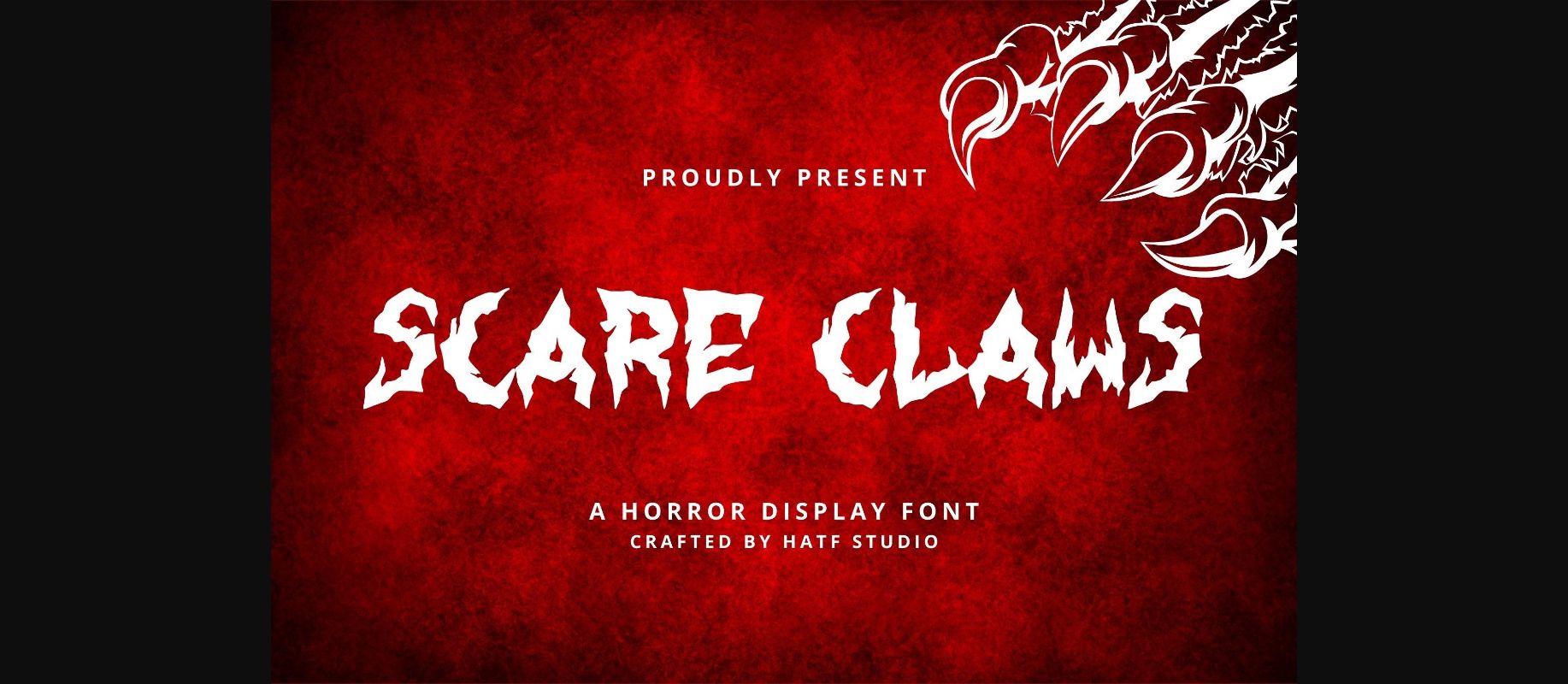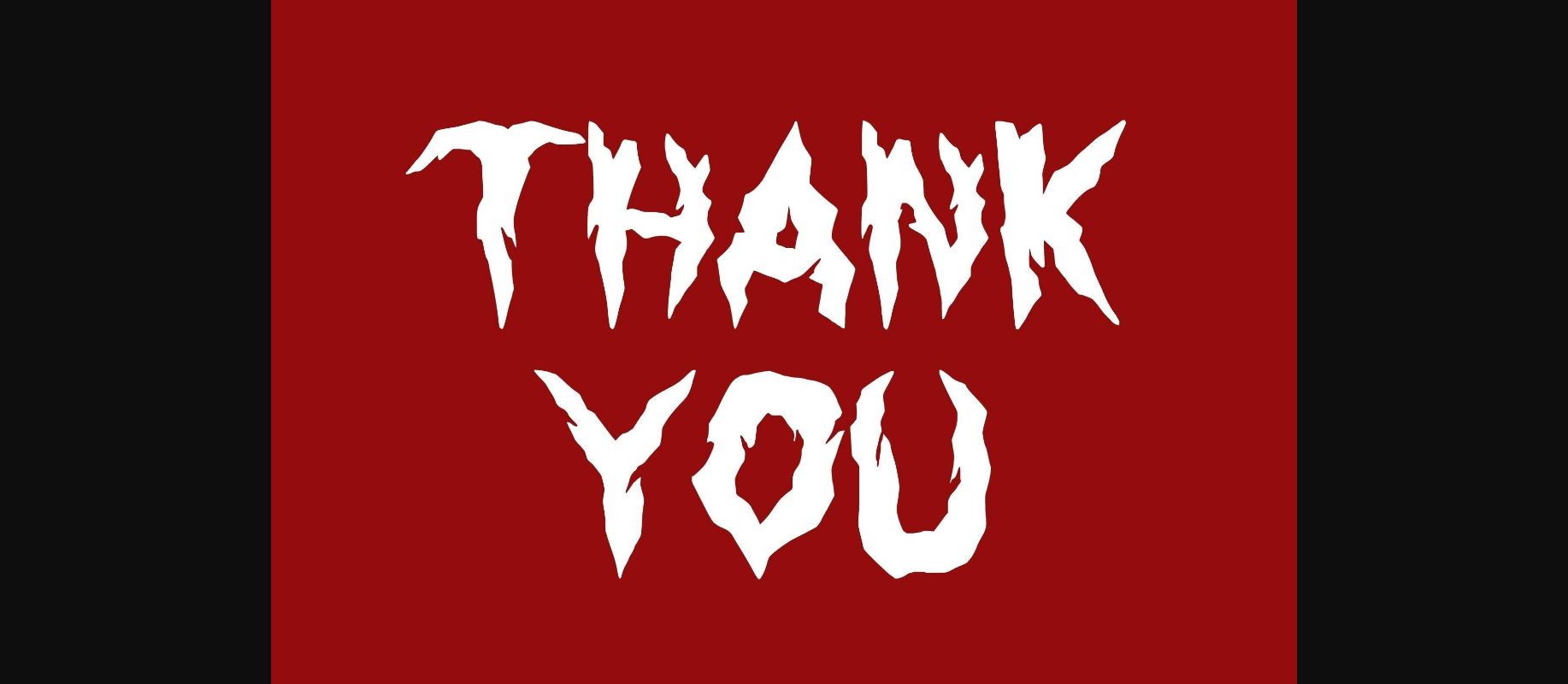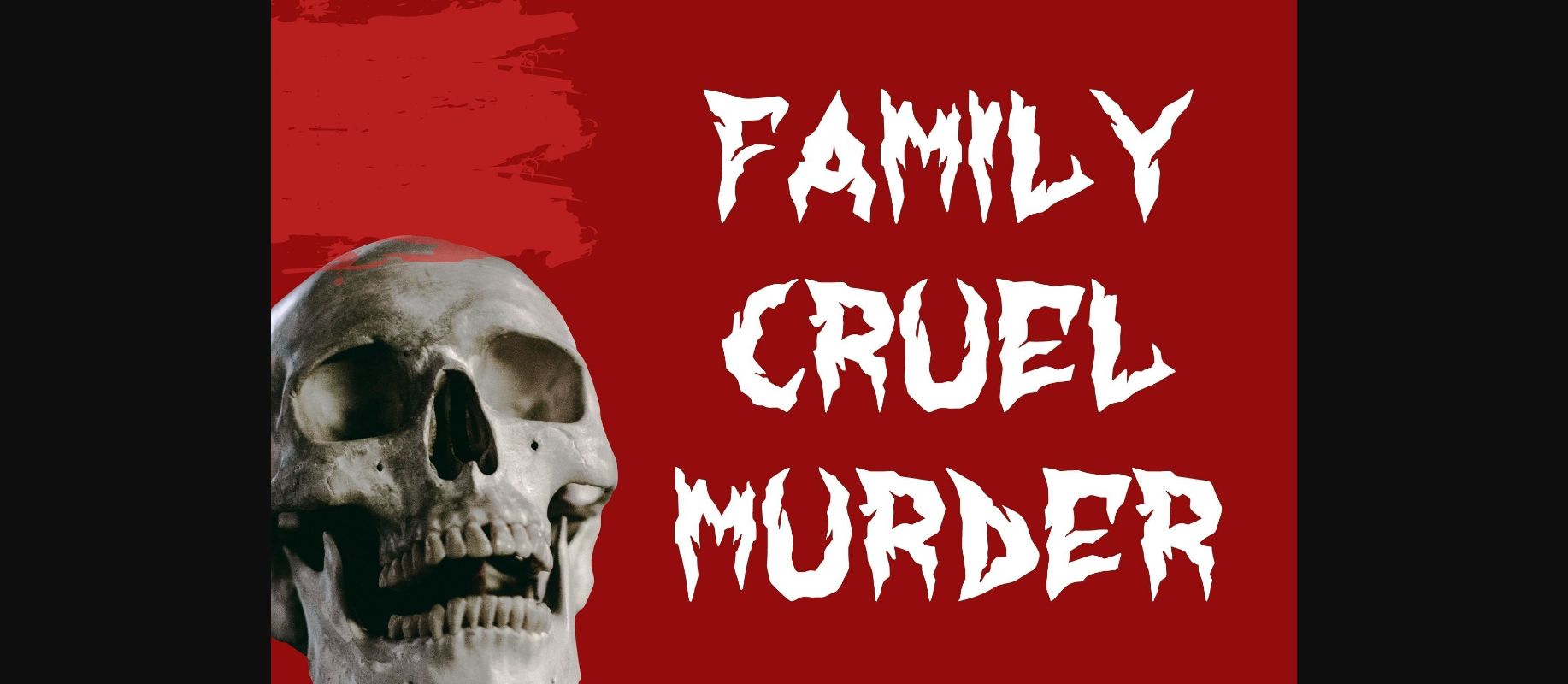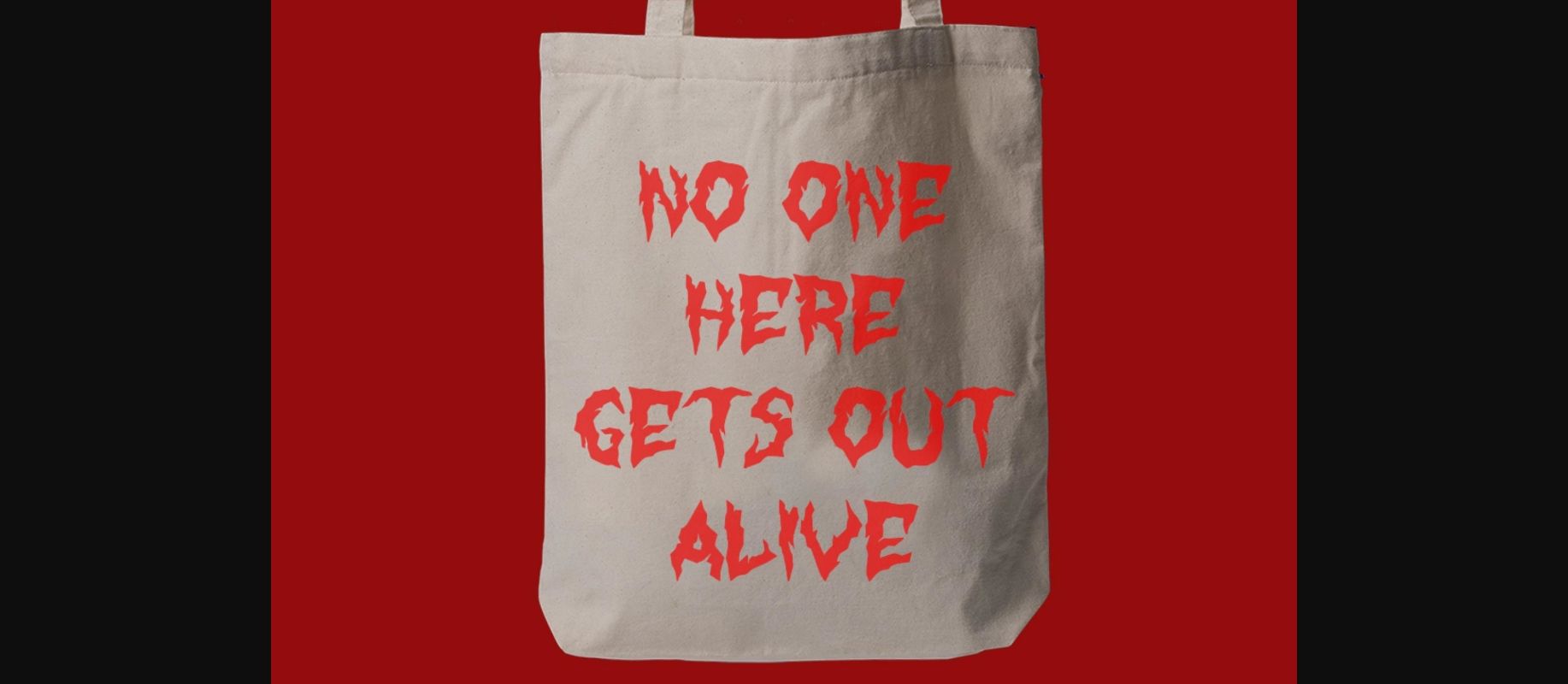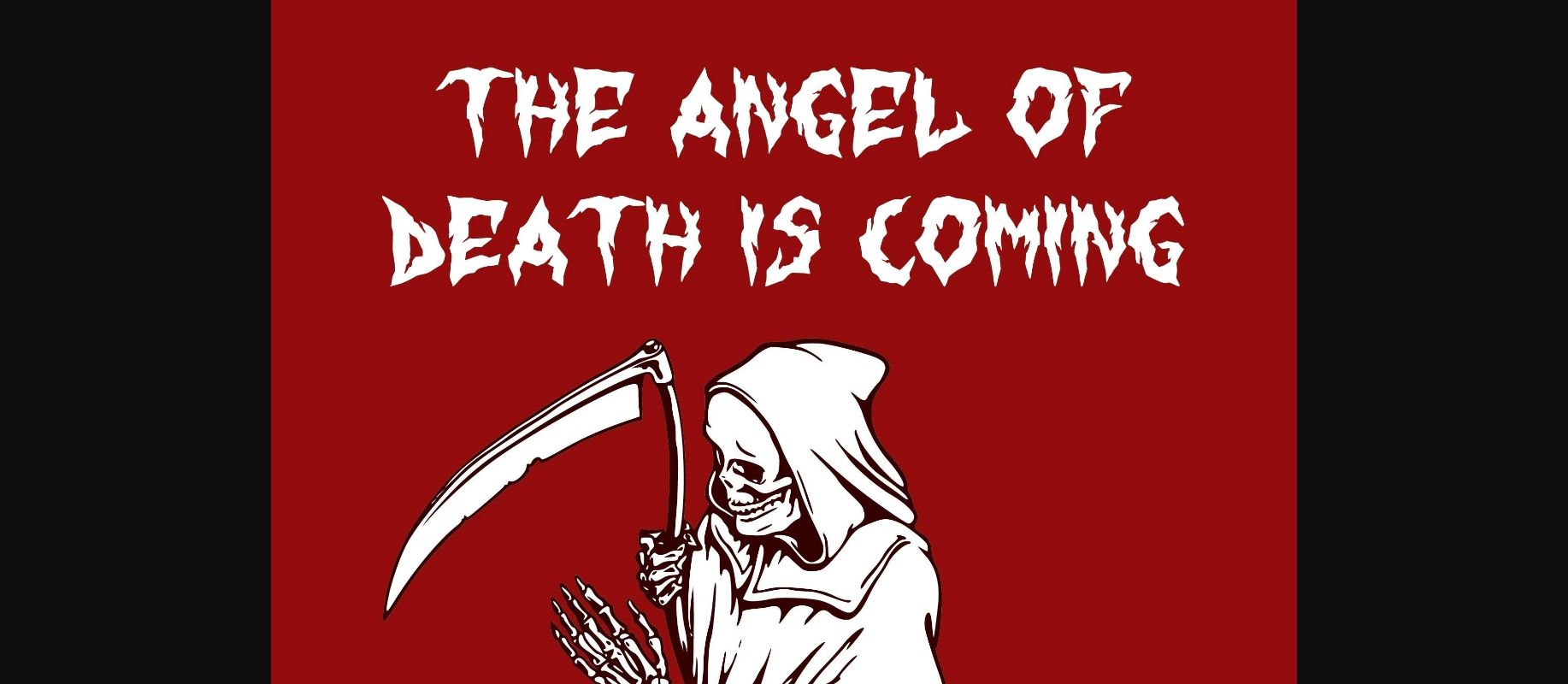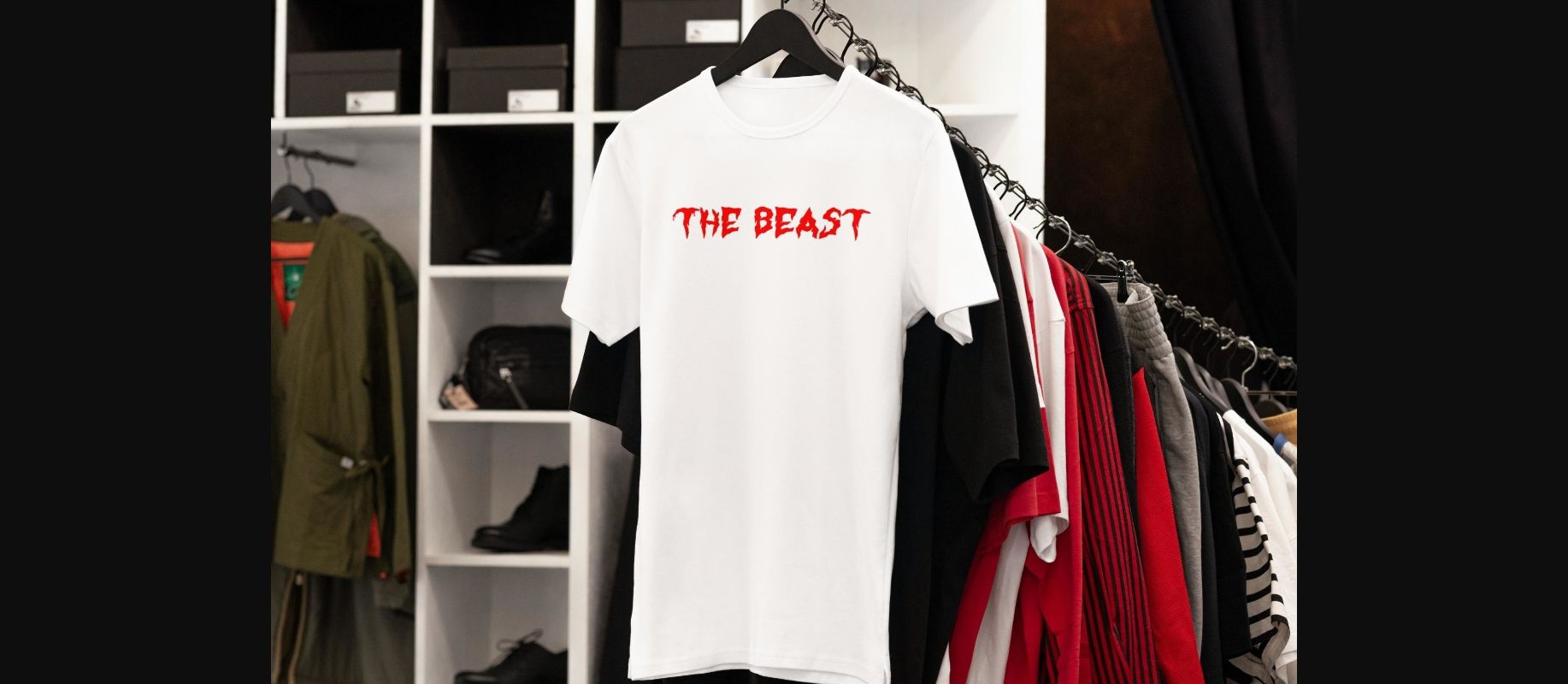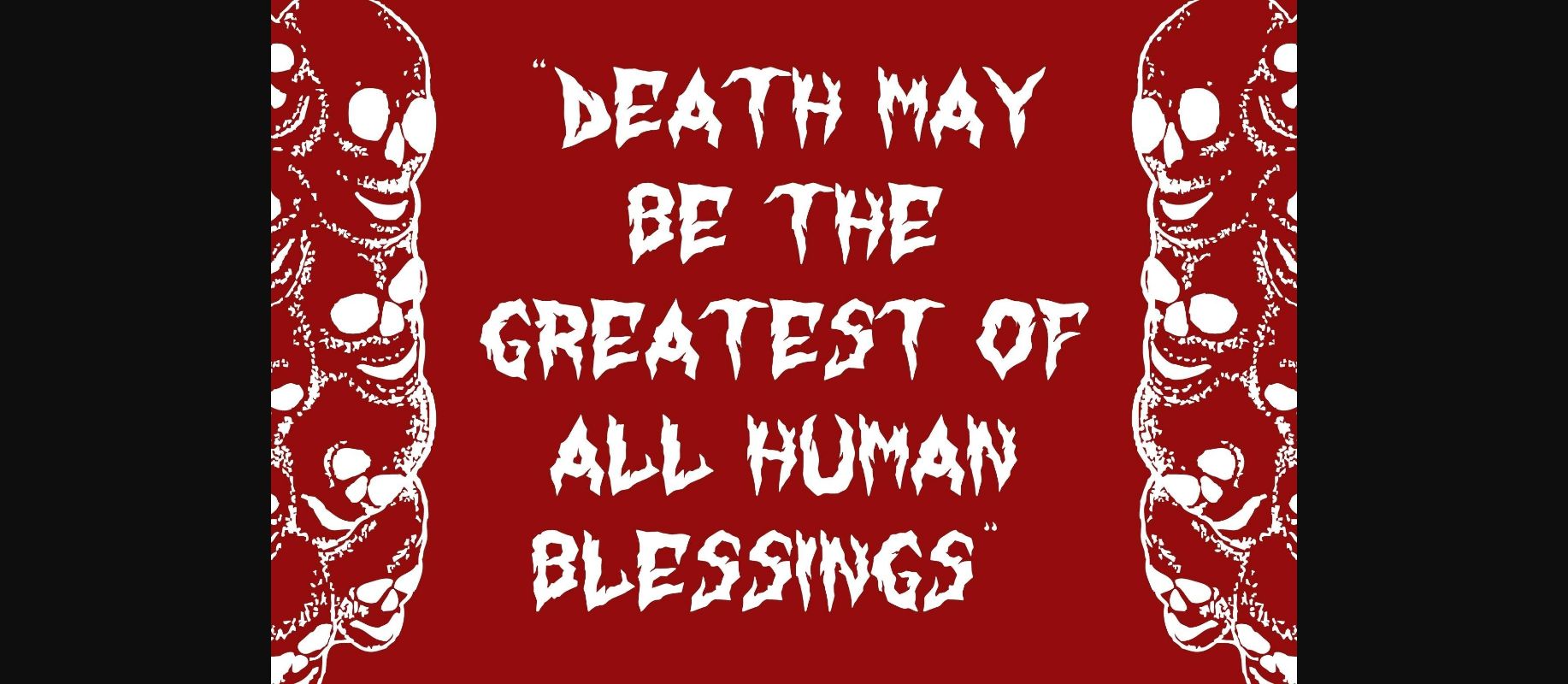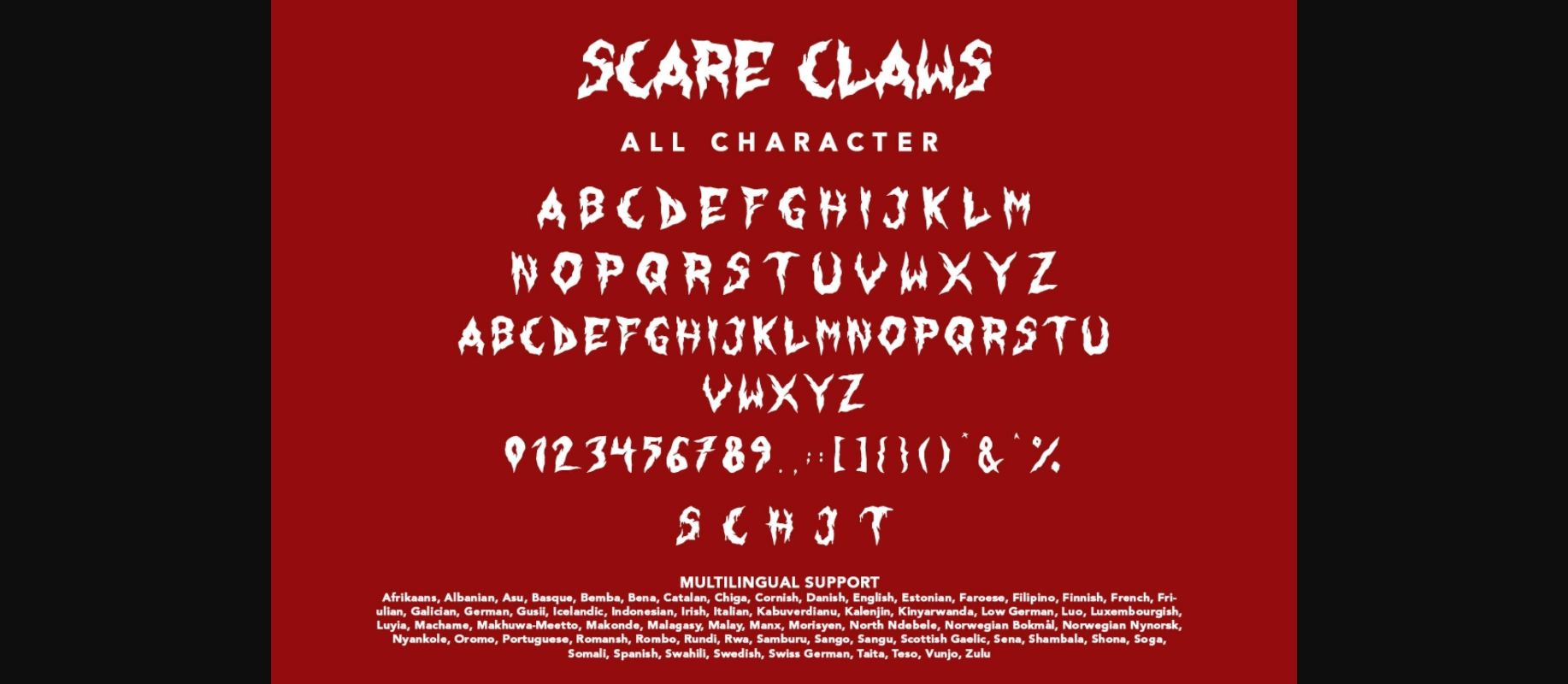
Scare Claws Font
About Scare Claws Font
Scare Claws – A Horror Decorative Font inspired by gothic and horror styles. It has a unique shape that makes it perfect for any project!
It is great for logotypes, posters, badges, book covers, t-shirt designs, packaging, and any more.